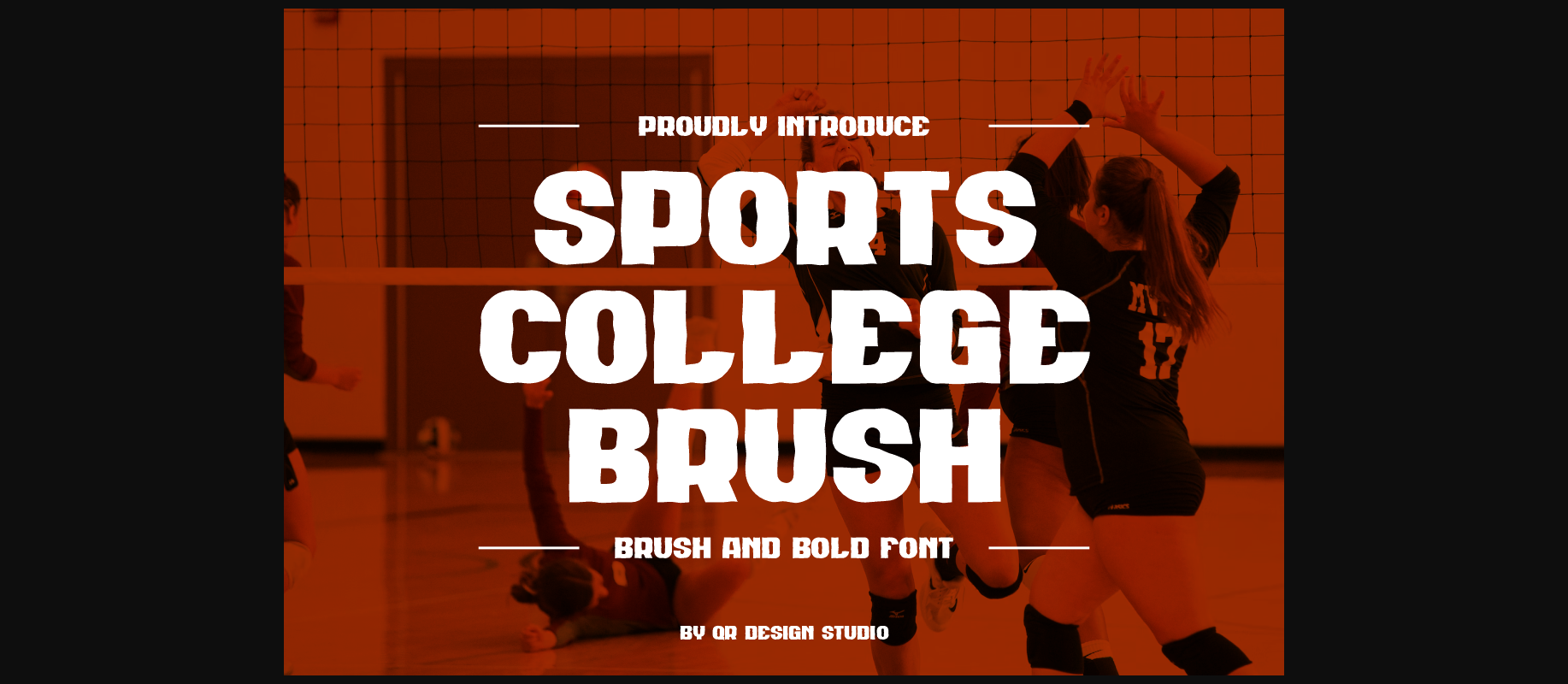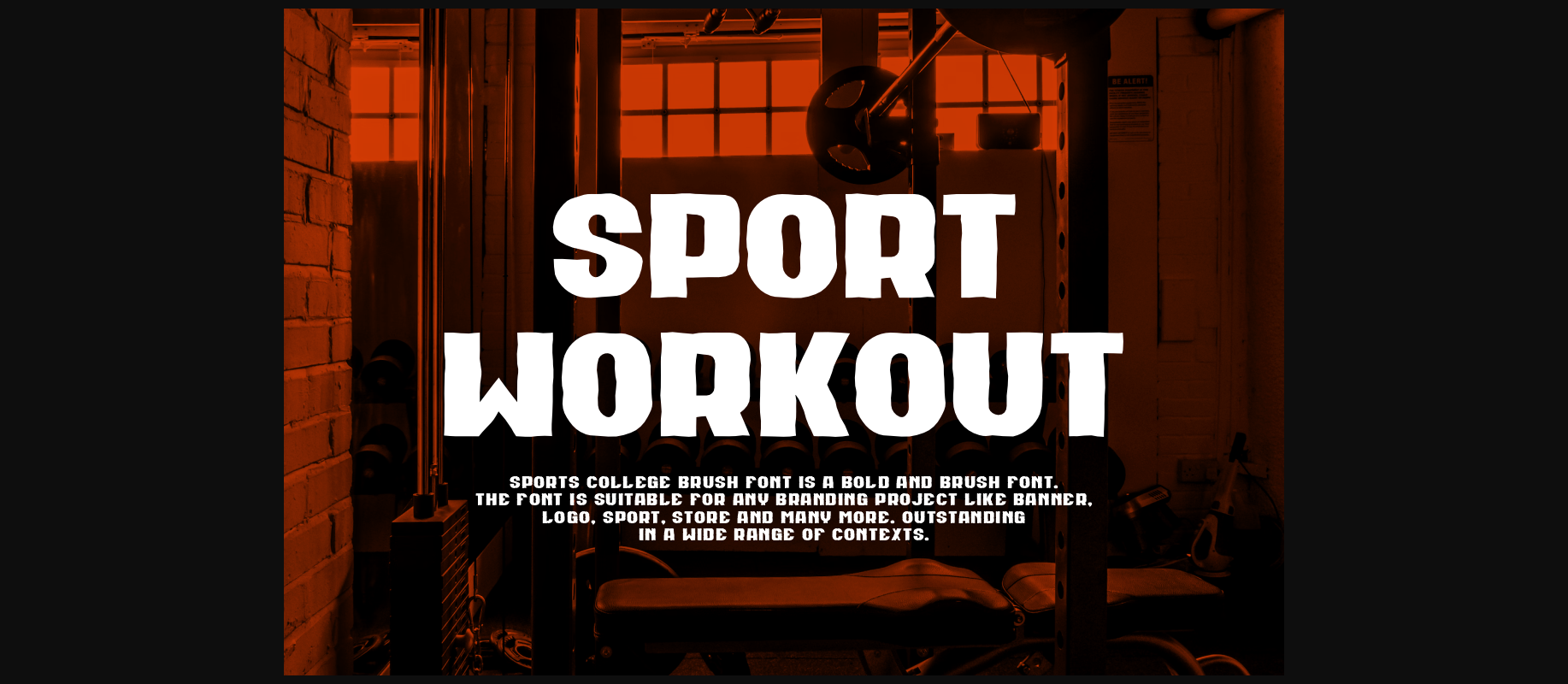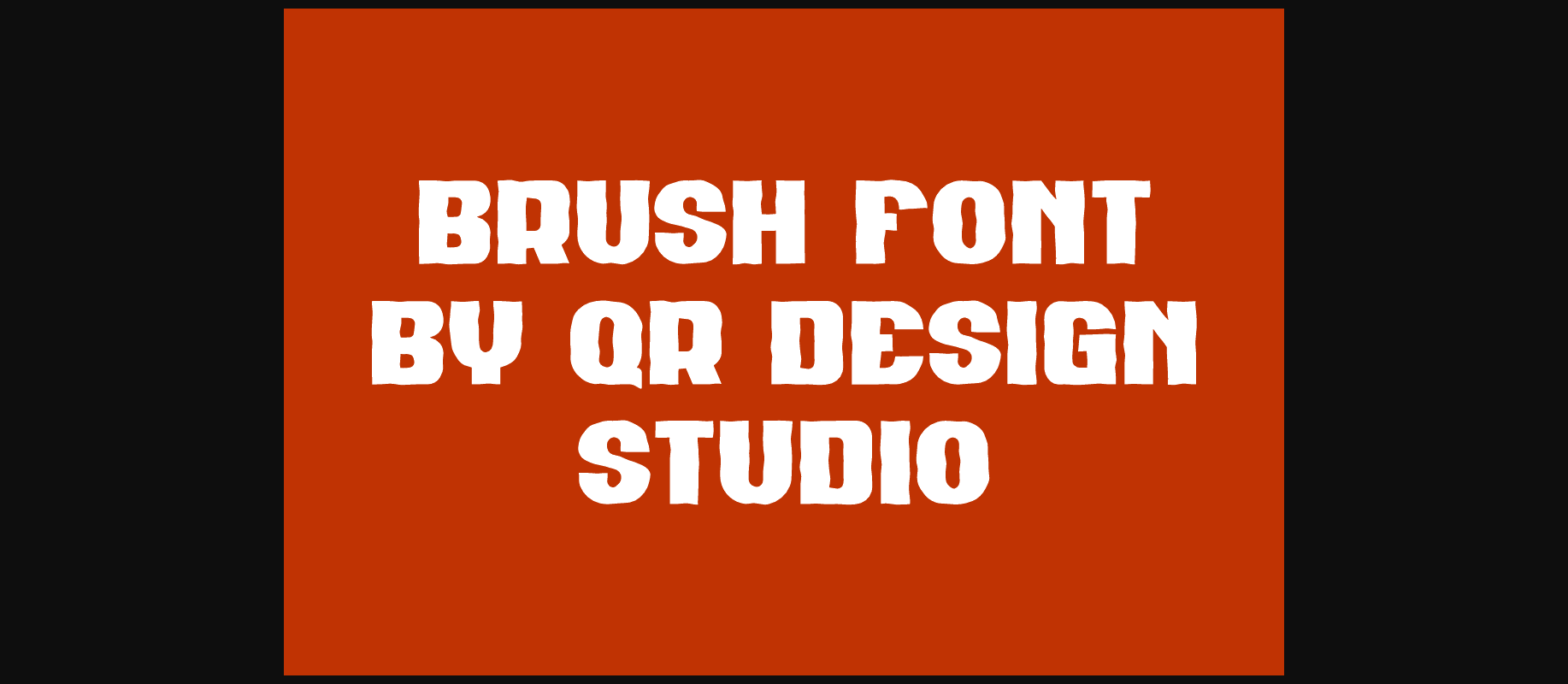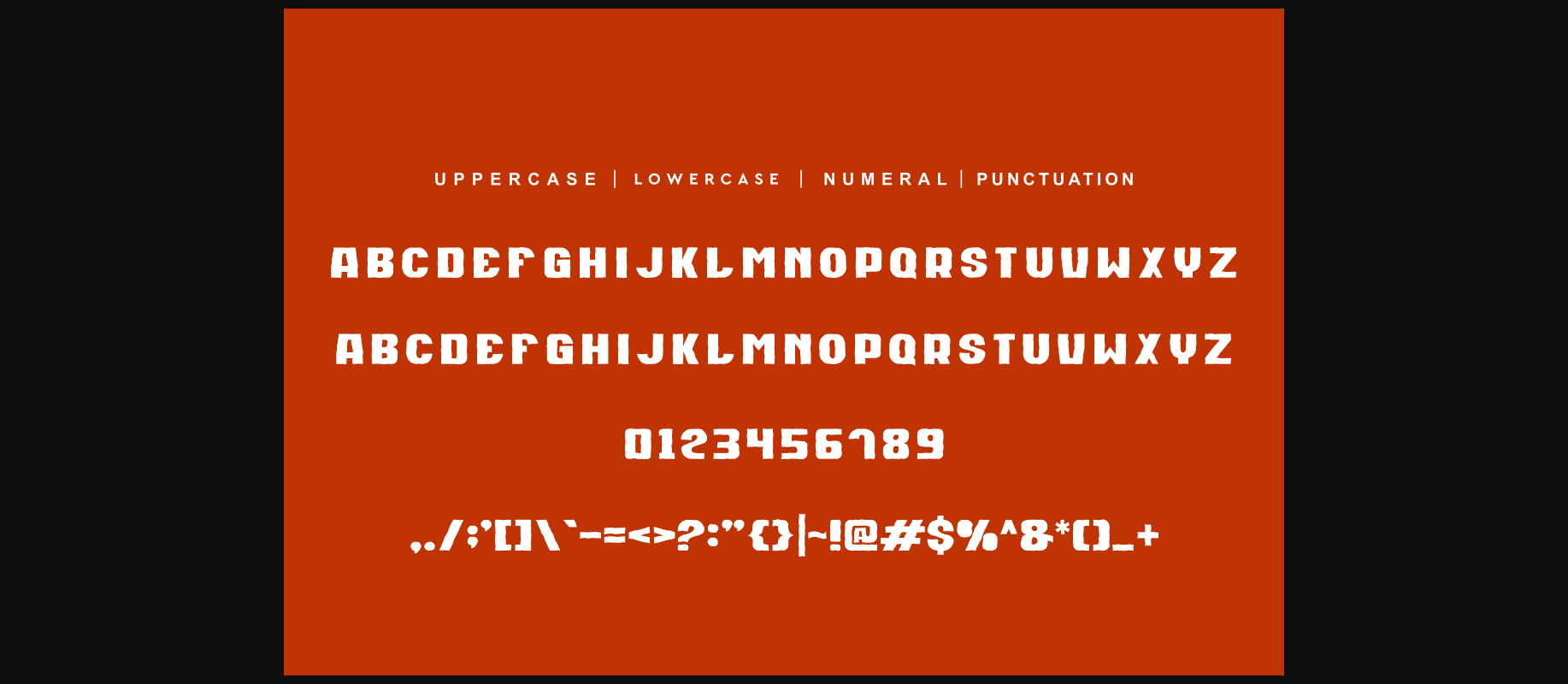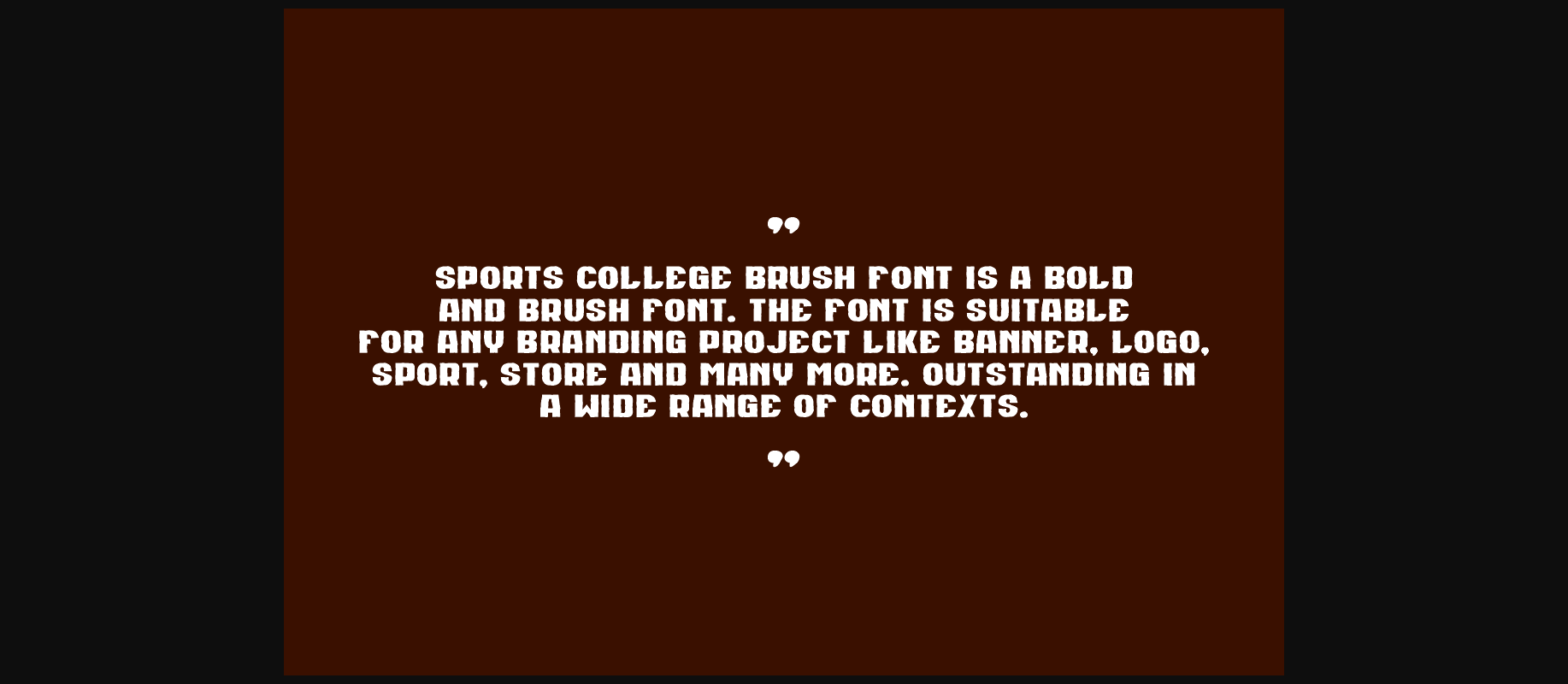
About Sports College Brush Font
Sports College Brush Font is a bold and authentic display font.
The font is suitable for any branding project like logo, sport, and many more.